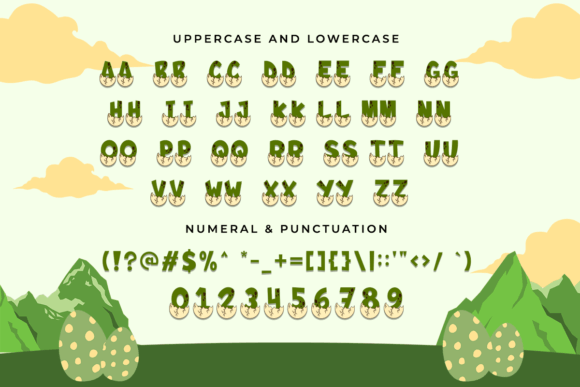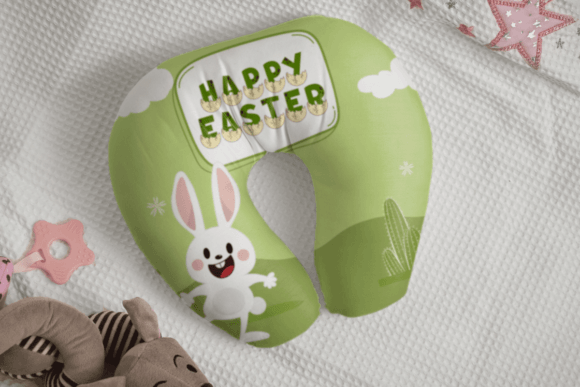
Introduction to Egg Dino Font
Discover the whimsical world of Egg Dino Decorative Dino Kids SVG Font.
This enchanting font combines the fun of dinosaurs with the charm of decorated eggs, creating a delightful and unique typeface perfect for children’s projects Ideal for storybooks, educational materials, party invitations, and more, this font is designed to captivate young minds with its vibrant colors and playful characters.
Key Features of Egg Dino Font
Why Choose Egg Dino Font?
Egg Dino Font offers exceptional quality and versatility, making it a valuable addition to your design toolkit. Whether you’re creating for personal projects or commercial use, Egg Dino Font delivers professional results.